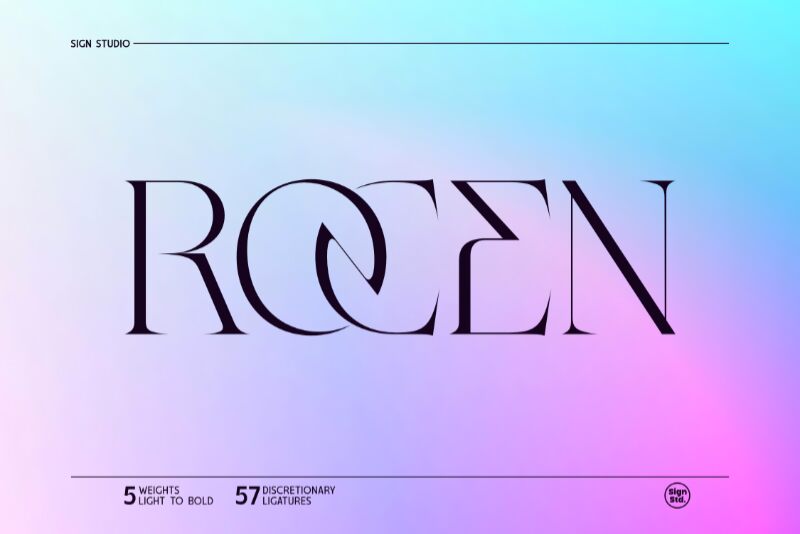
Rocen font was designed and published by Sign Studio. This versatile and artistic serif typeface is made with calligraphic influences for a neat and sleek finish. It has a gorgeous geometric nature with some clear noticeable additions that make it fun, abstract, and modern. Inspired by mid-century artwork and with high contrast, this refined typeface is the result of a sophisticated design journey.
Rocen would make a beautiful addition to many design projects such as invitations, book covers, magazine issues, wallpapers, branding, websites, and presentations. You can also combine it with other typefaces that go along with its structured nature for results that stand out.